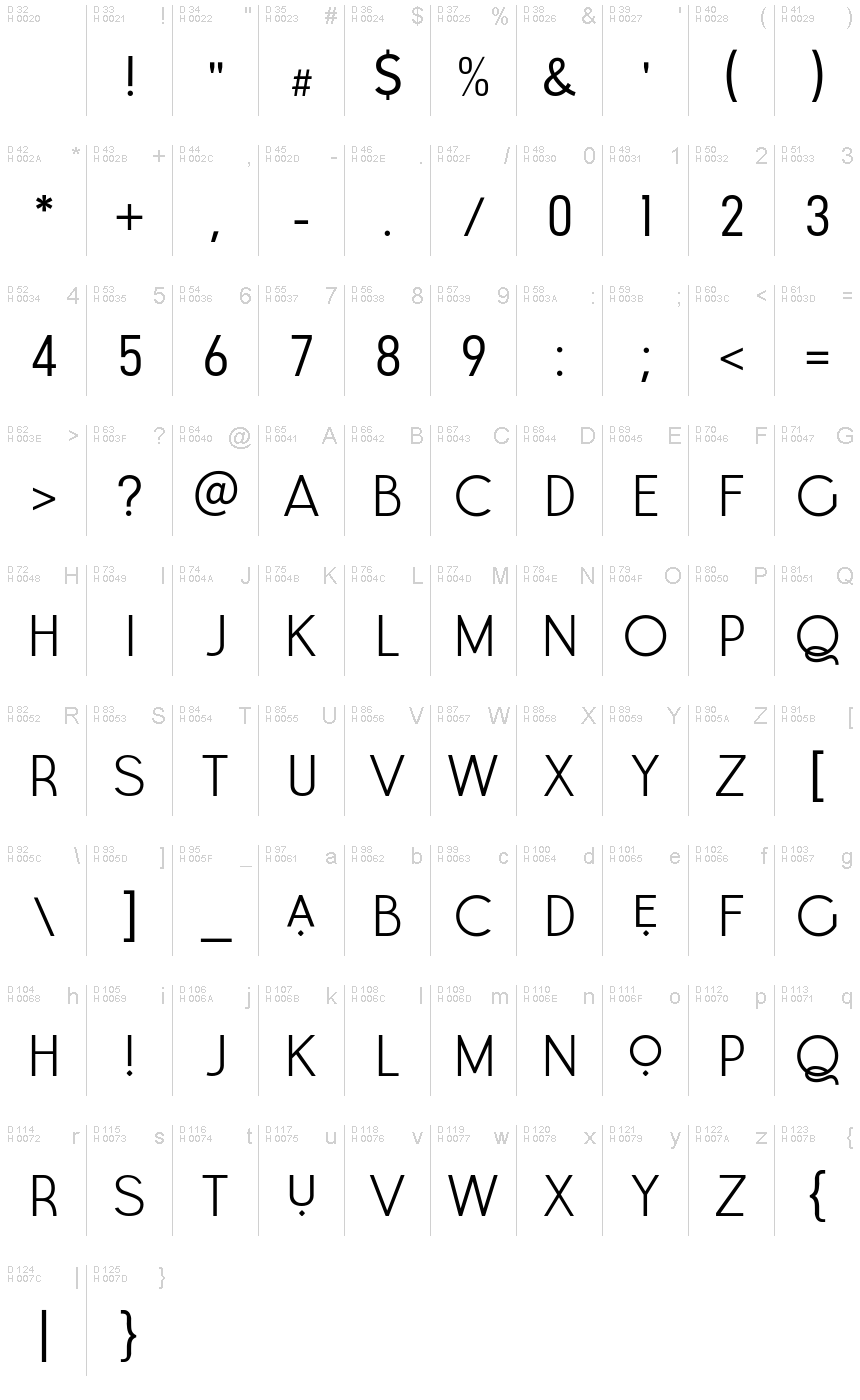
DoomsdaysDragons
Doomsdays Dragons font by UI Creative is a stunning sans serif that combines elegance with deco influences, geometric elements, and decorative flair. This free font brings a modern touch that is suitable for all your creative and professional work.
Business logo design, branding, packaging design, book covers, flyers publications, classy movie posters or banners for TV shows can all benefit from Doomsdays Dragons.